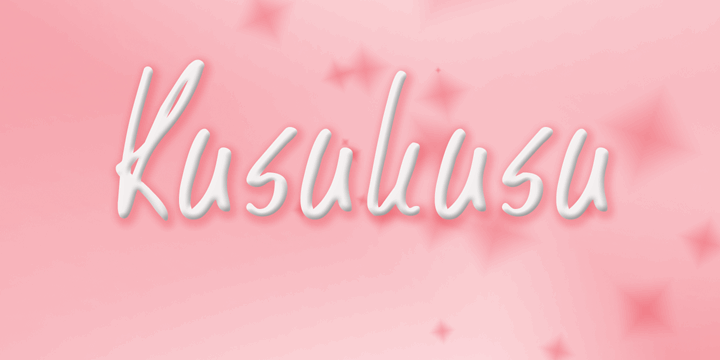
Free DK Kusukusu Font
Introducing you to the absolutely beautiful free dk kusukusu font. Download this font from the original source of Font Space. Easily amaze your audience with this fancy font and make your graphic designs pop up from the crowd.